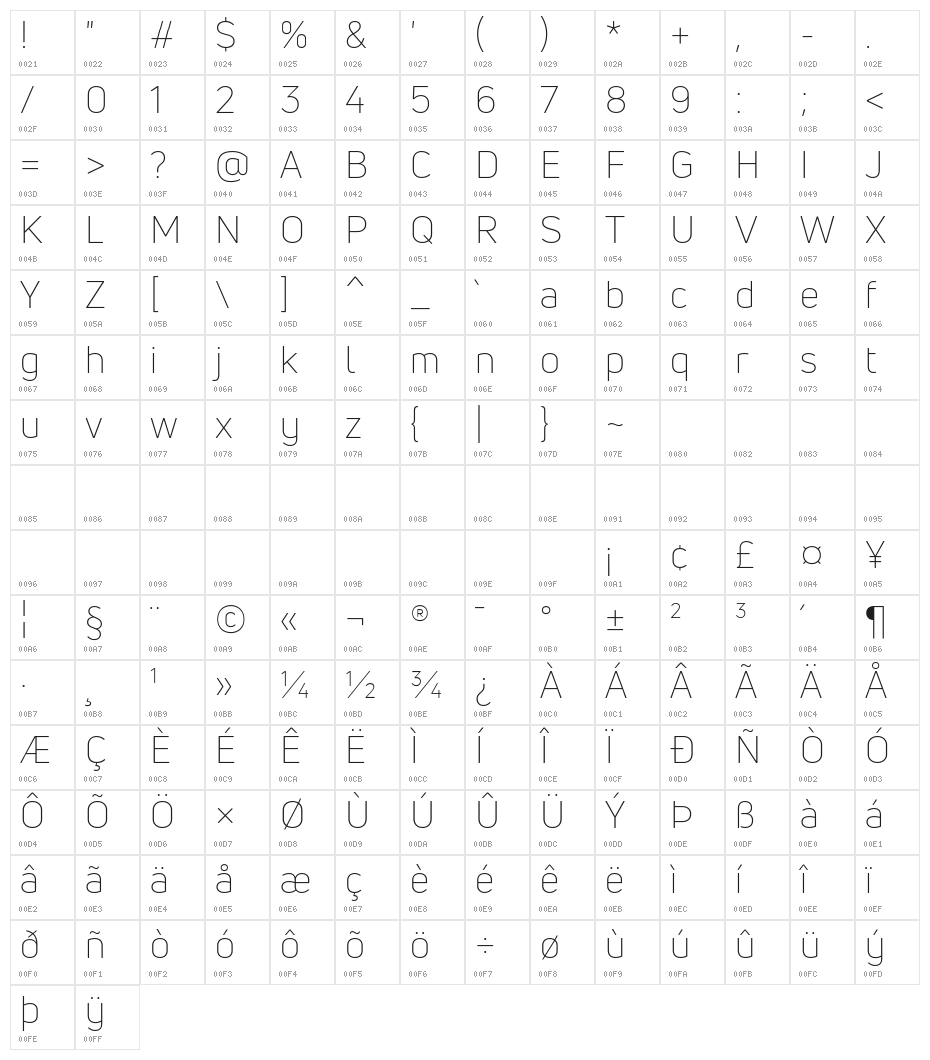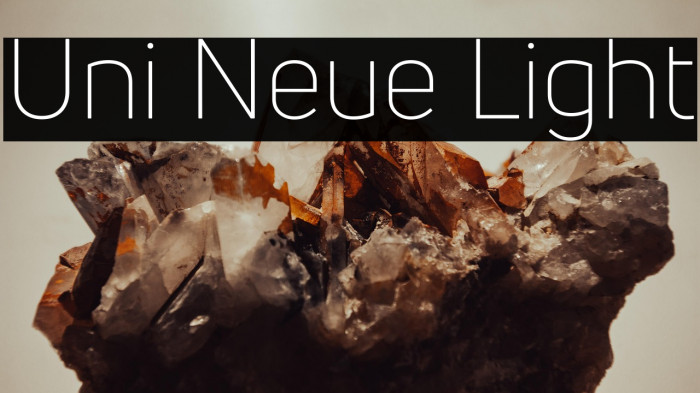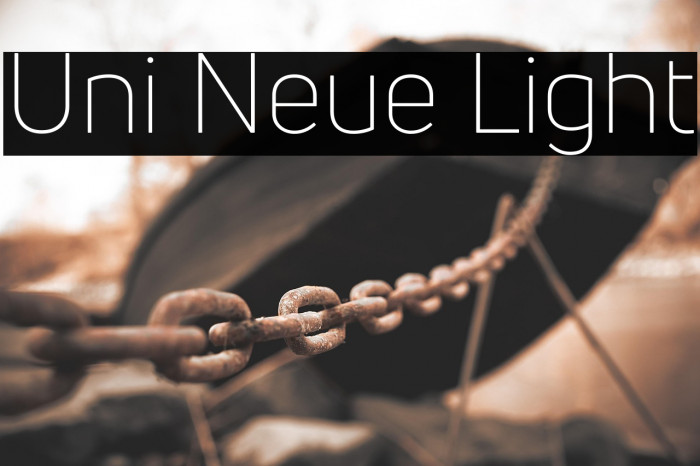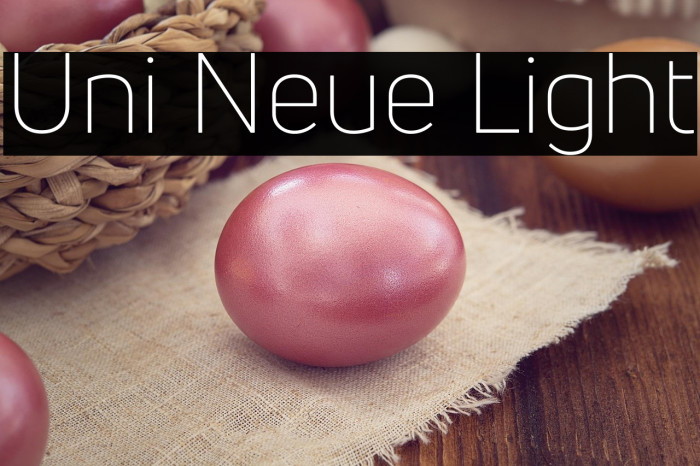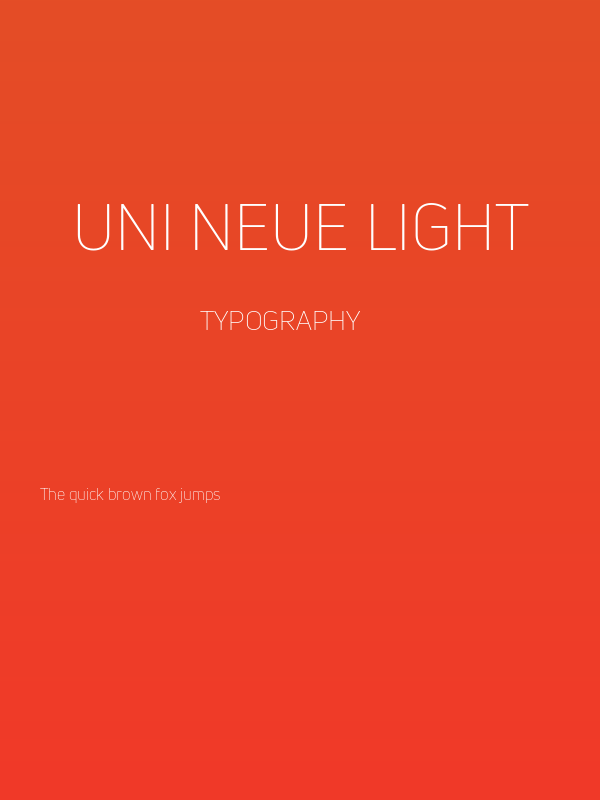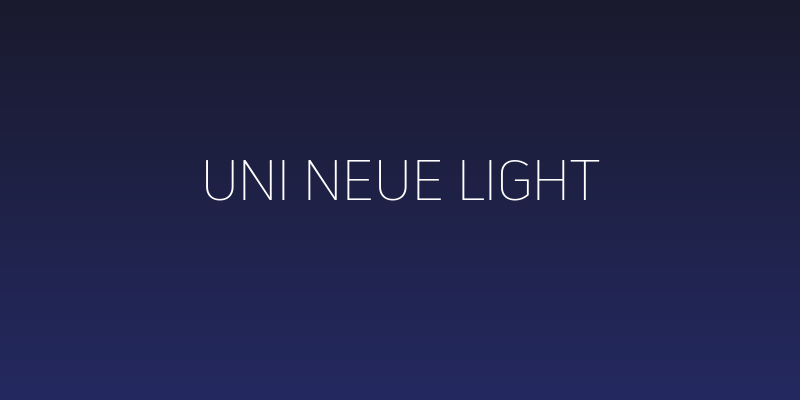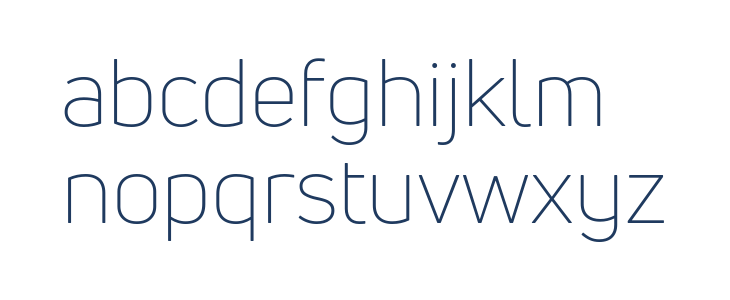
Uni Neue Light Font
Uni Neue Light Description
This font is a modern sans-serif typeface characterized by its clean and minimalistic design. The letters are evenly spaced with a consistent stroke width, giving it a sleek and contemporary appearance. The uppercase and lowercase letters are well-balanced, with rounded edges that add a touch of softness to the overall look. The numerals are clear and easy to read, making them suitable for various applications. Special characters are included, maintaining the font's uniform style. Its simplicity and elegance make it versatile for both digital and print media.